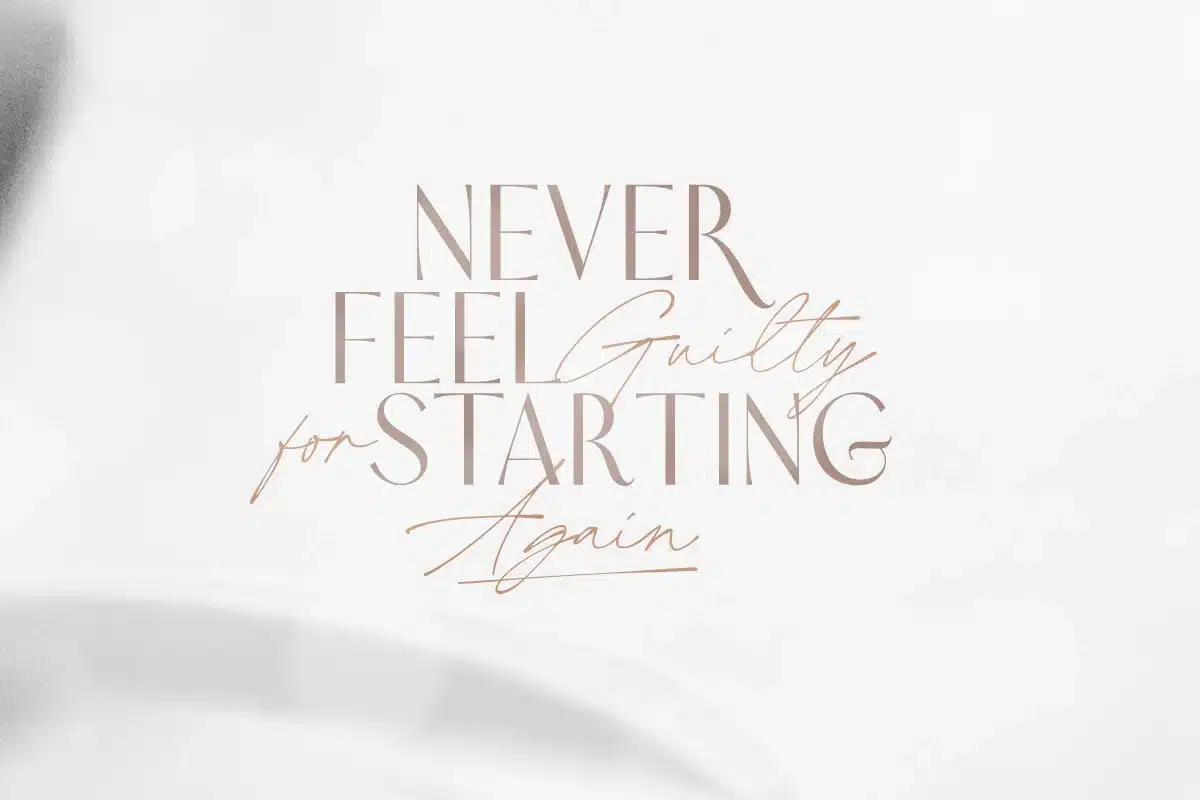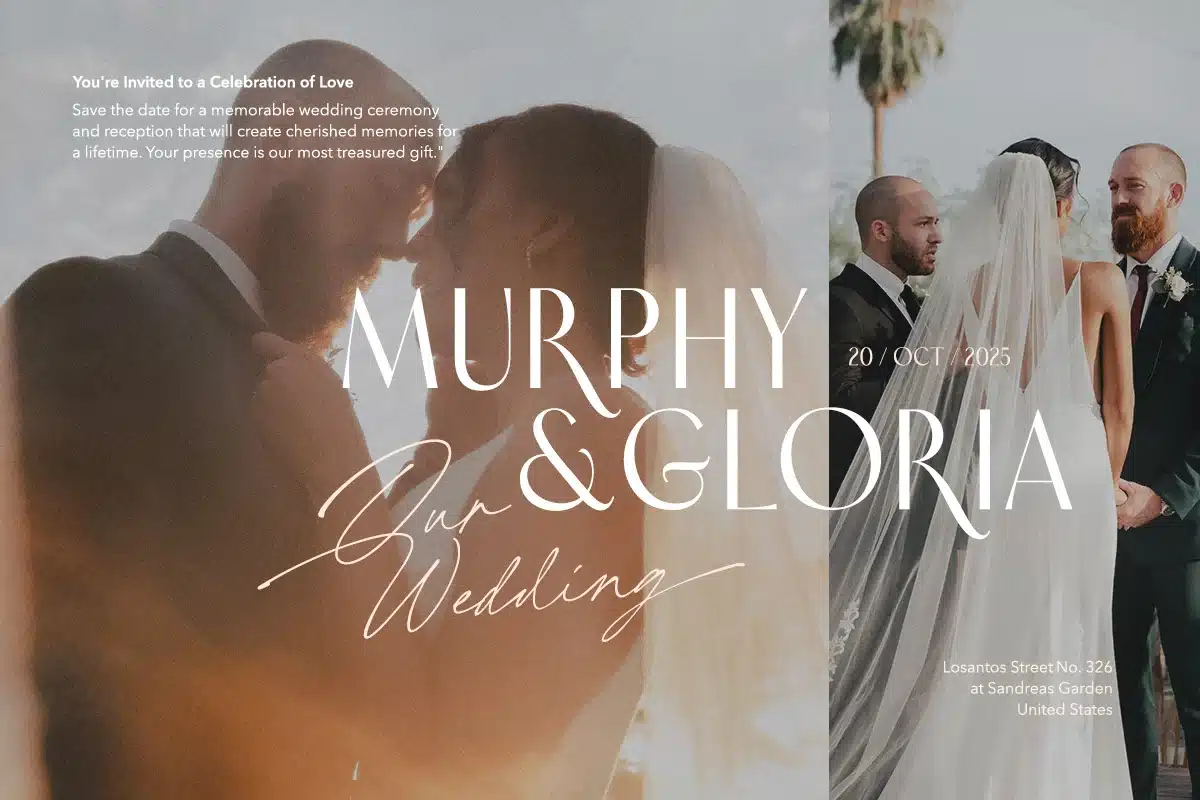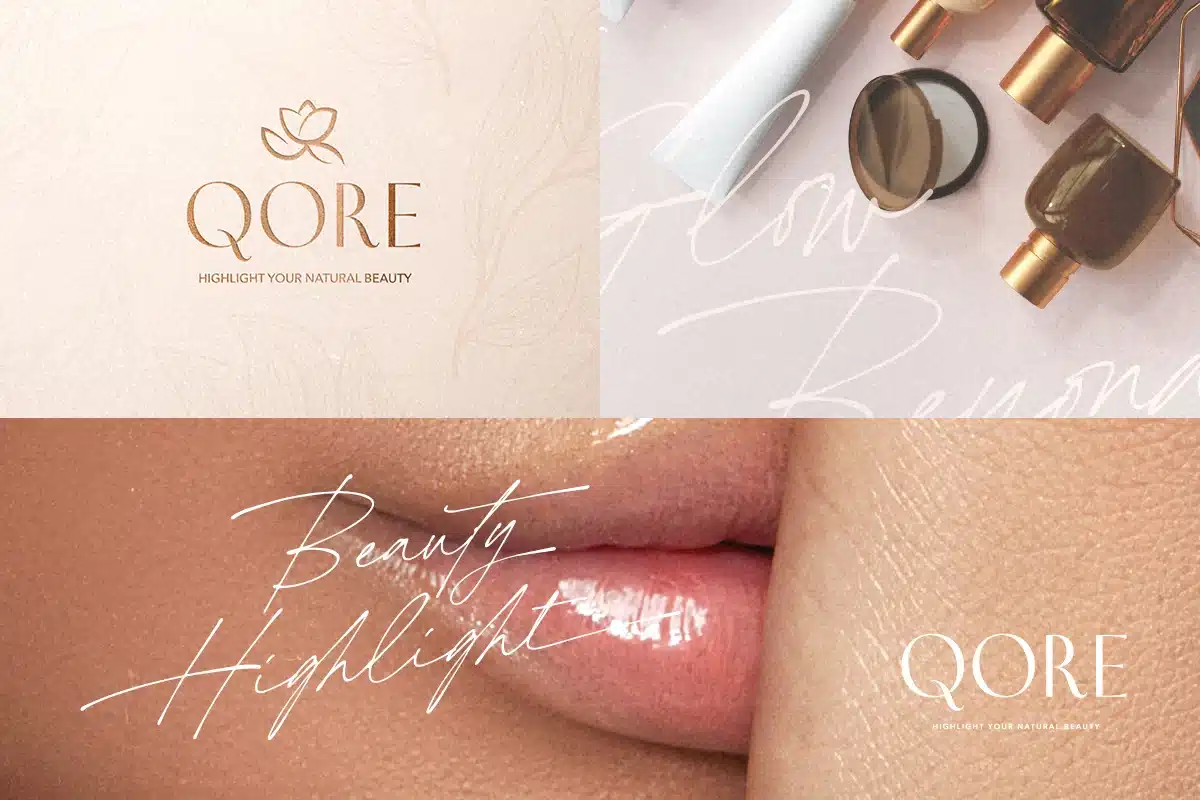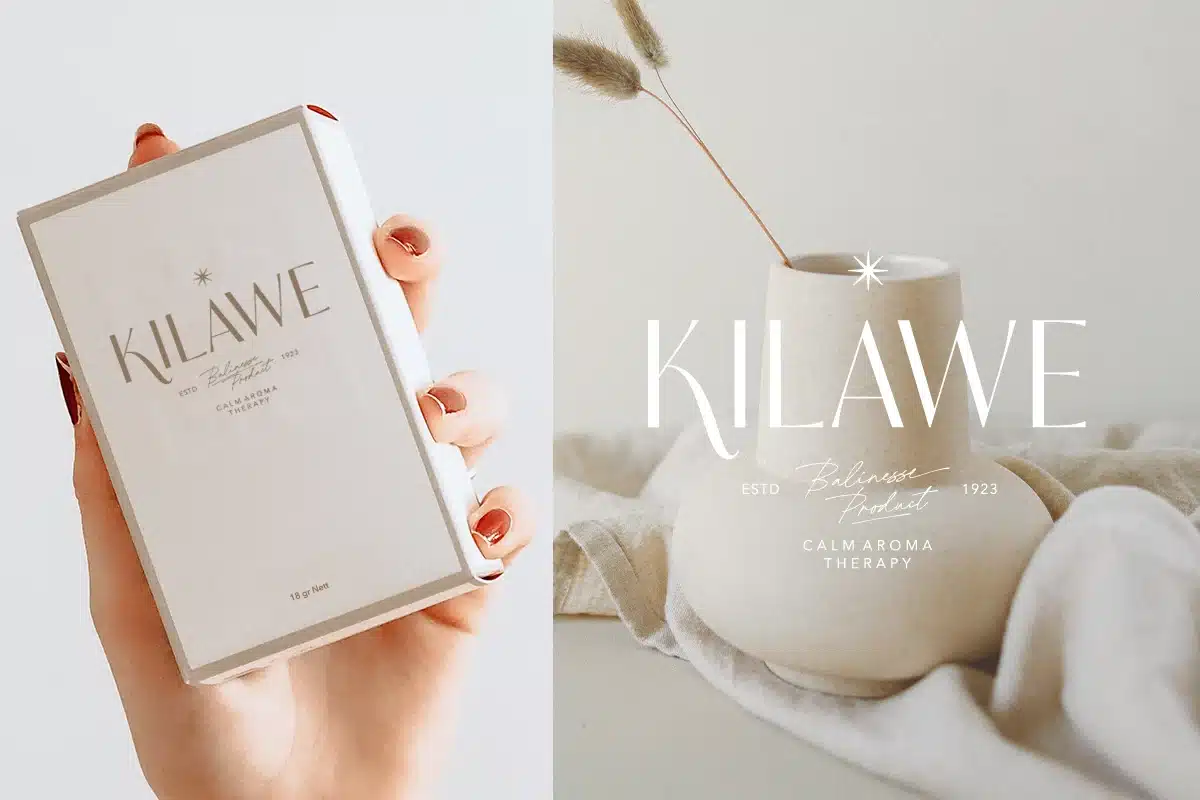
Bright Darling – Charming Font Duo
Bright Darling is a beautiful and elegant font duo offers a harmonious blend of a modern sans-serif and a distinctive signature script. Including two fonts – a refined modern all caps sans and a handwriting script. This font is so versatile that you can use for any purposes such as branding, quotes, wedding invitations. and logo. This duo supports multiple languages, numbers, symbols, end swashes, and numerous ligatures.